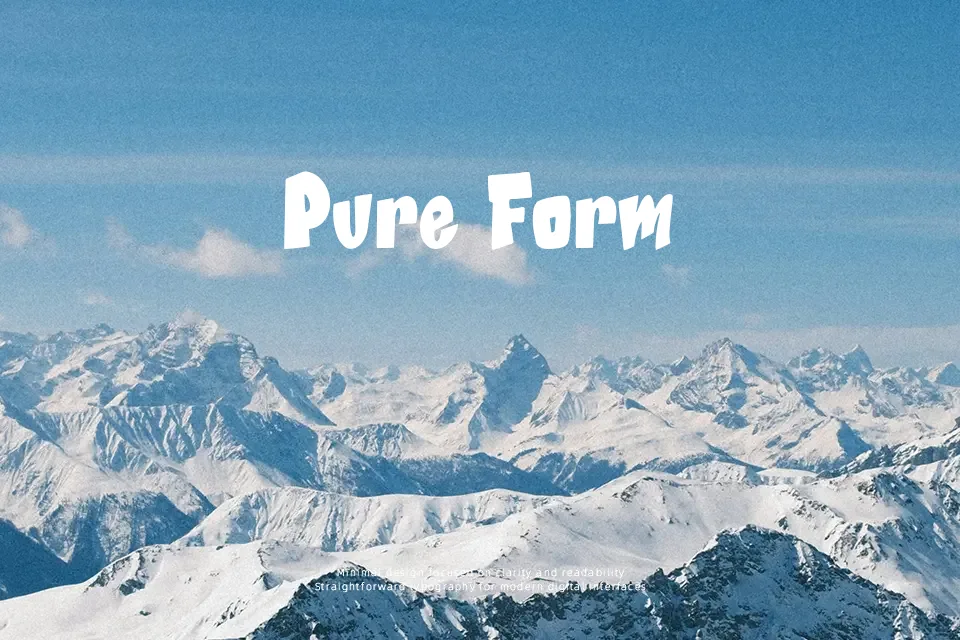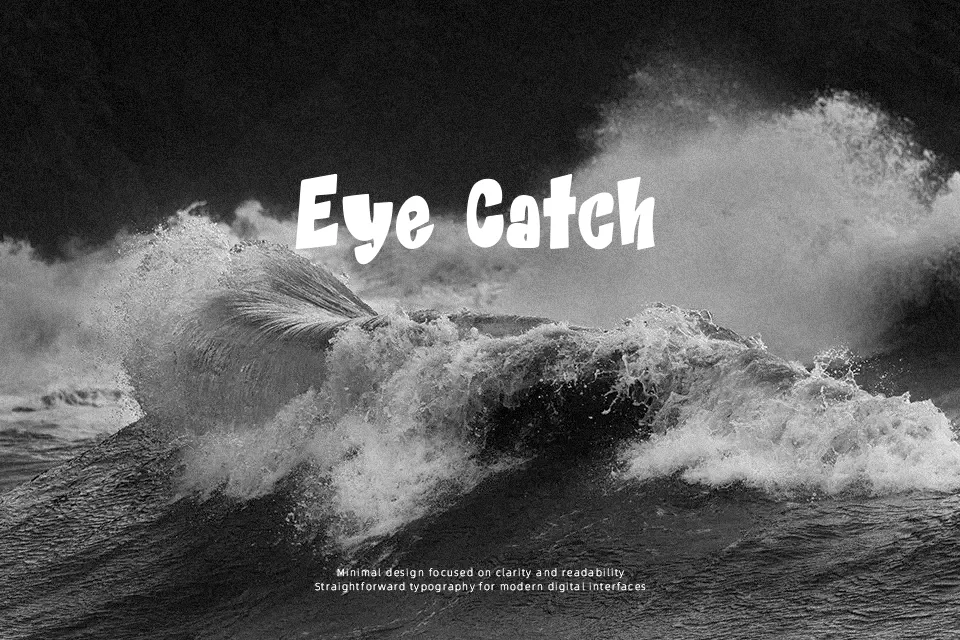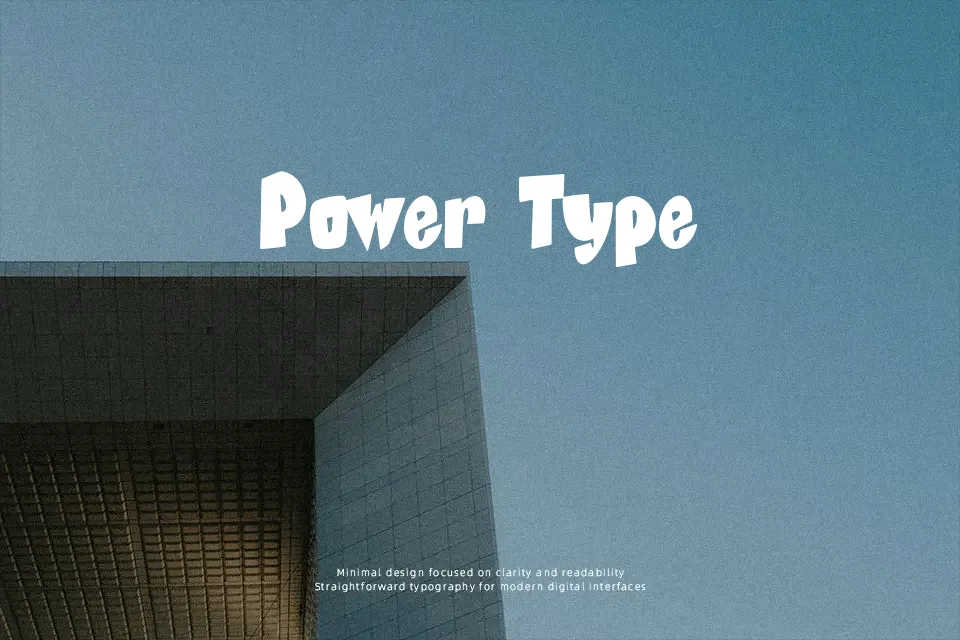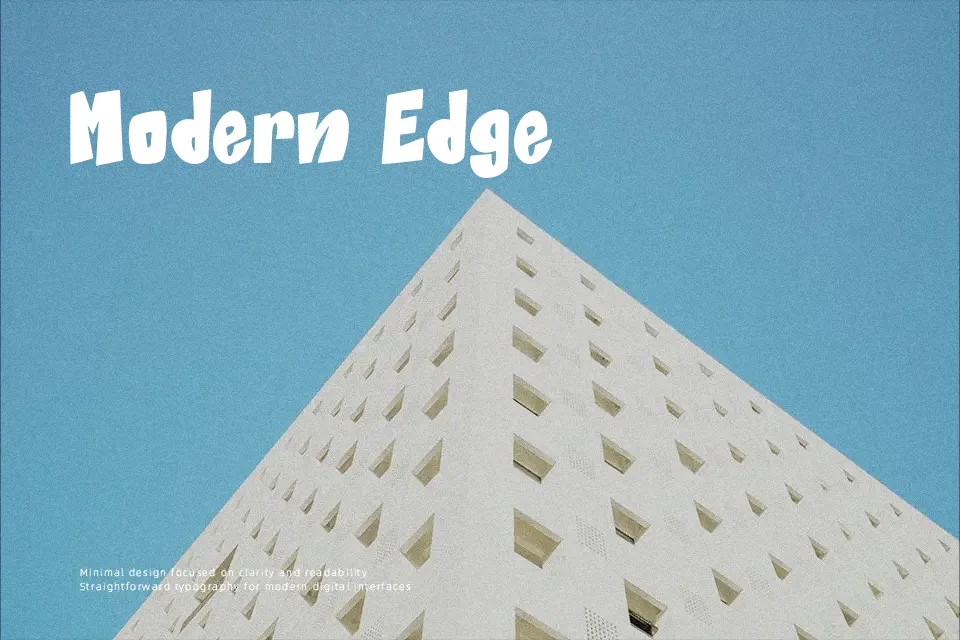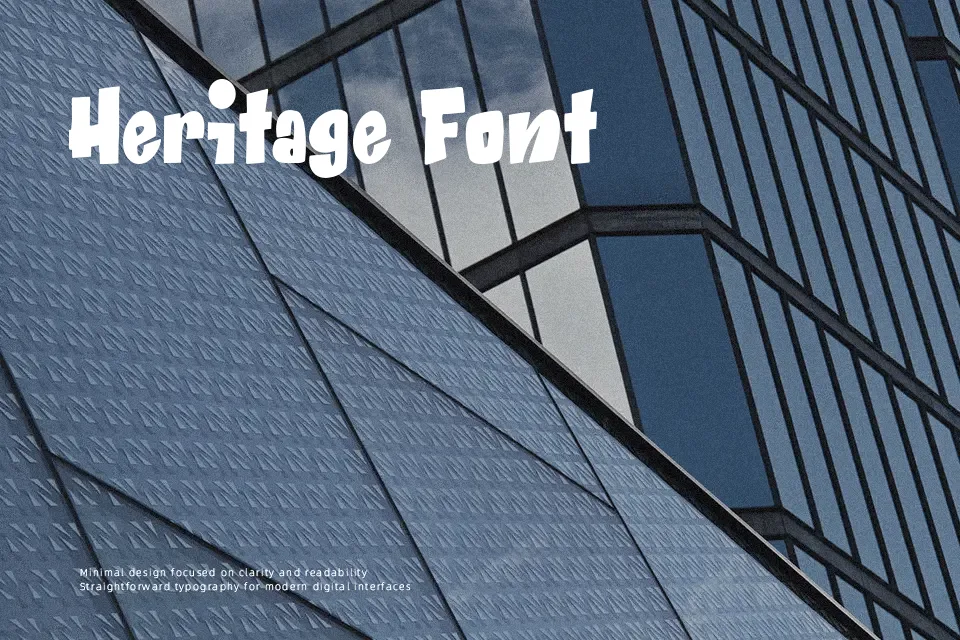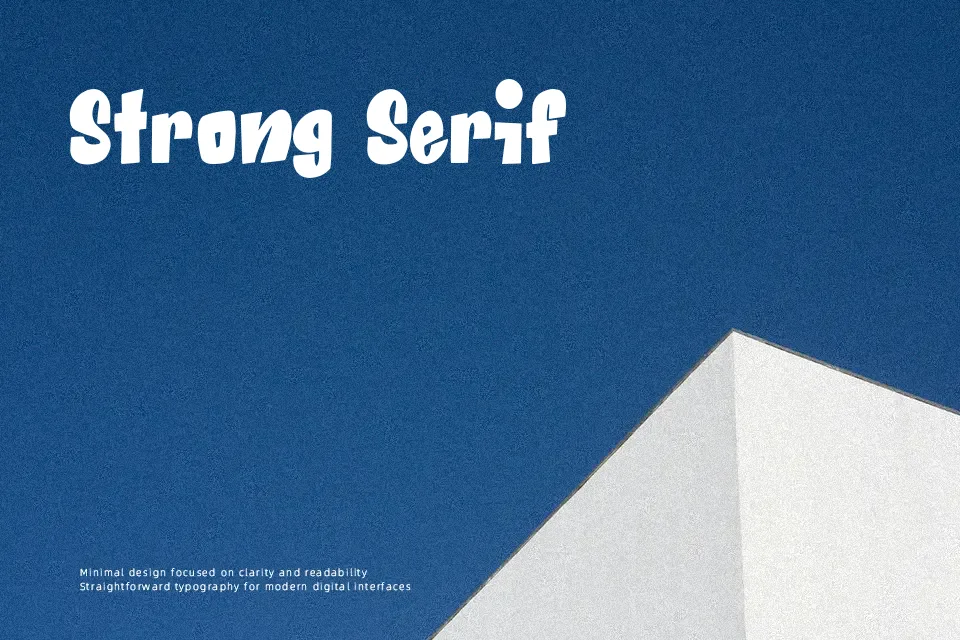
Beat Word Font
Designed by D&K Project
Beat Word leans on heavy, rounded strokes and semi‑condensed proportions that push letters close together, giving words a loud, bouncy rhythm on the line. The shapes feel hand-drawn and slightly irregular, with cartoon-style curves and bold counters that read clearly at larger sizes. It works well for playful branding, YouTube thumbnails, packaging titles, or music and children’s event posters where you want impact rather than subtlety. However, the weight and decorative forms can quickly become tiring in long sentences, so it is weak for body copy or small captions. Use it when you need a punchy, fun headline; avoid it when readability and neutrality matter more than personality.
fun logo wordmarks and badges
product display packaging titles
music, gaming, or kids event posters
playful social media headers
long paragraph text or editorials
formal corporate documents and reports
minimal, ultra-clean UI design
small-size captions or legal text
Perfect for branding, logo, and music, with a artistic and cartoon style.